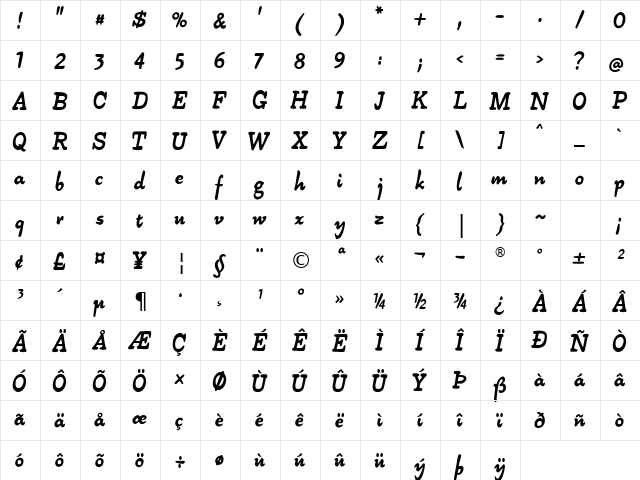
Alpha54 Regular
| Foundry | Peter Wiegel |
| Designer | Peter Wiegel |
Design Context for Alpha54 Typeface
Alpha54 takes a measured approach to typography — its balanced proportions and neutral character make it a reliable workhorse for both digital and print work.